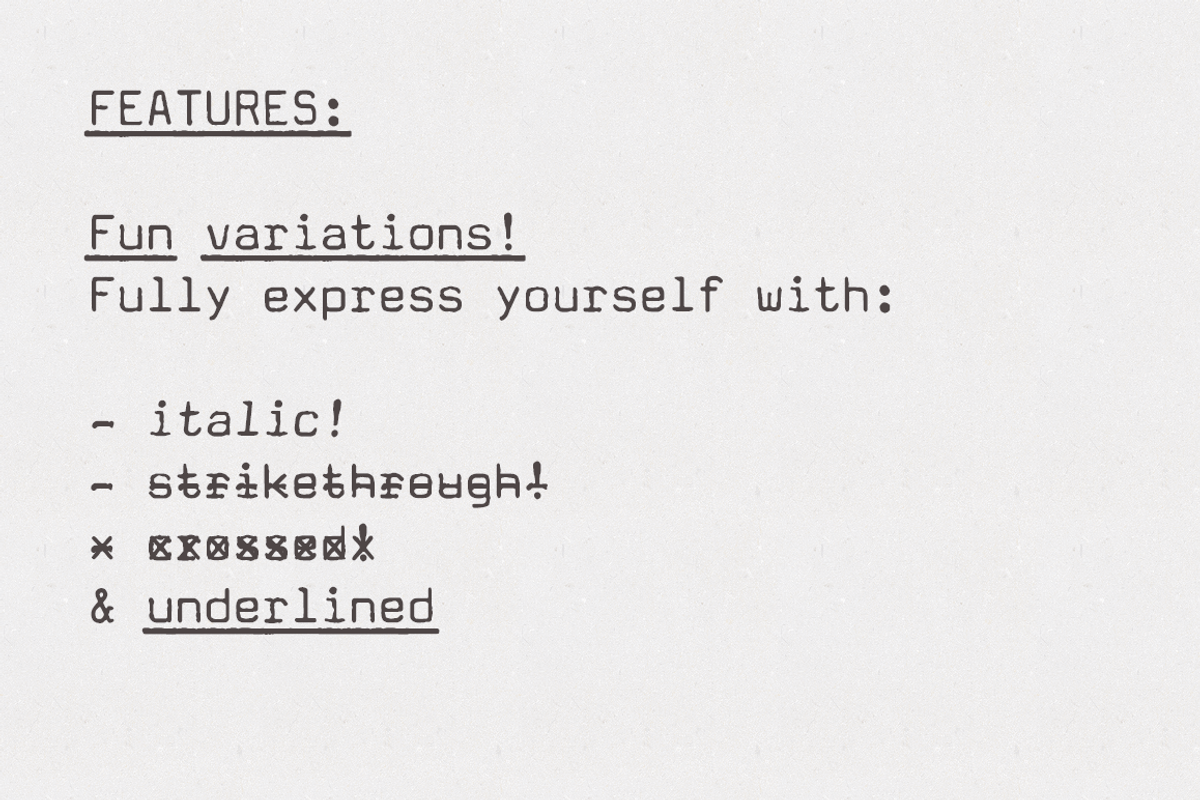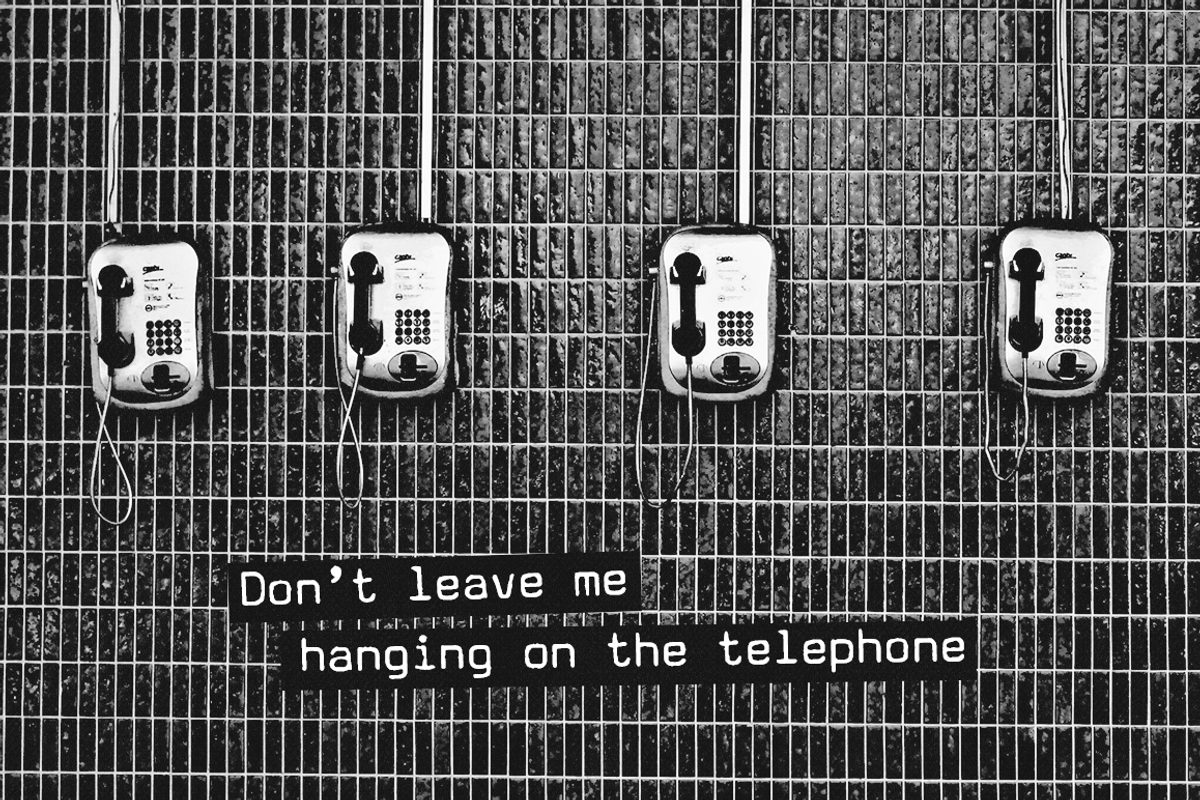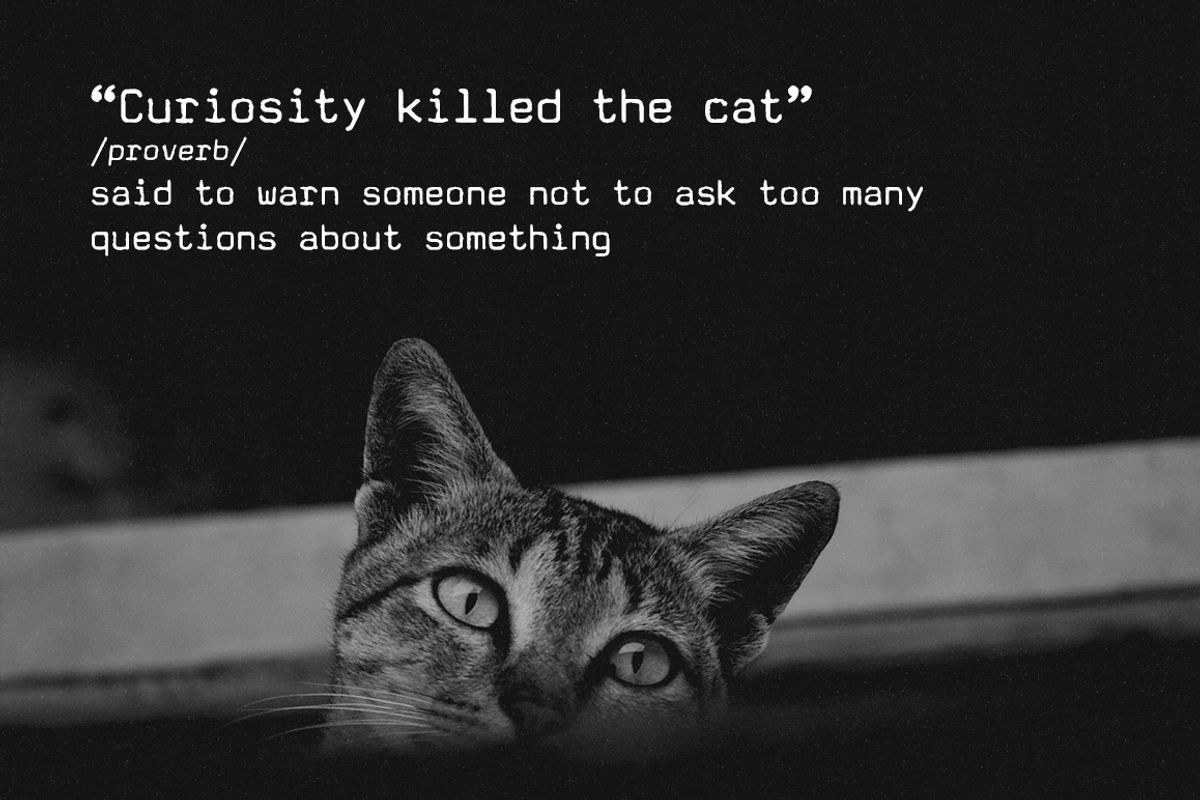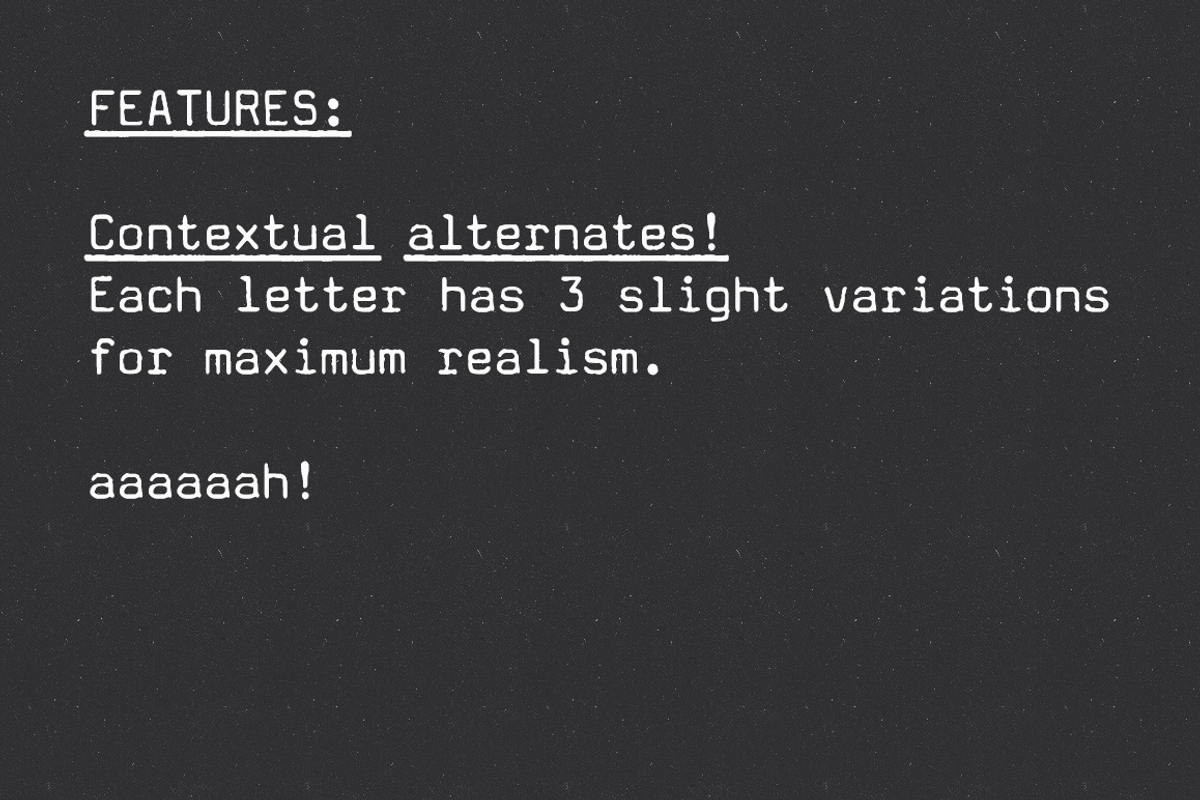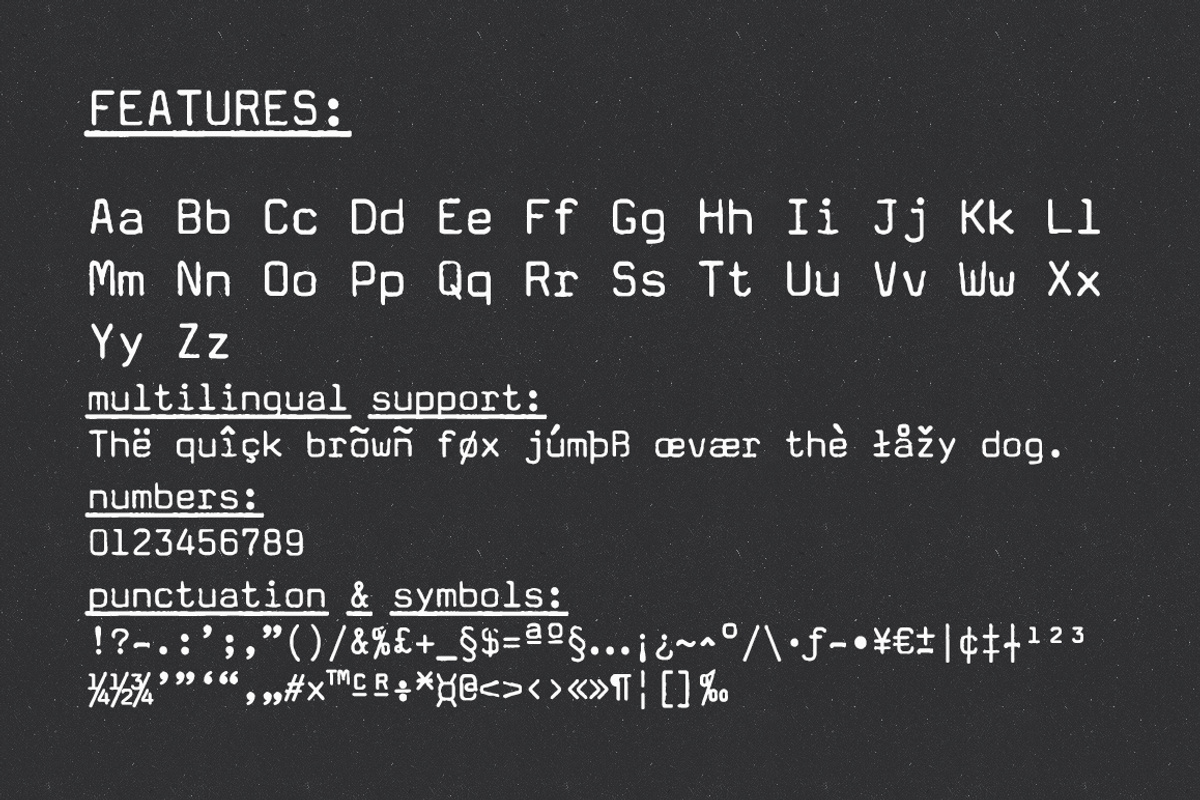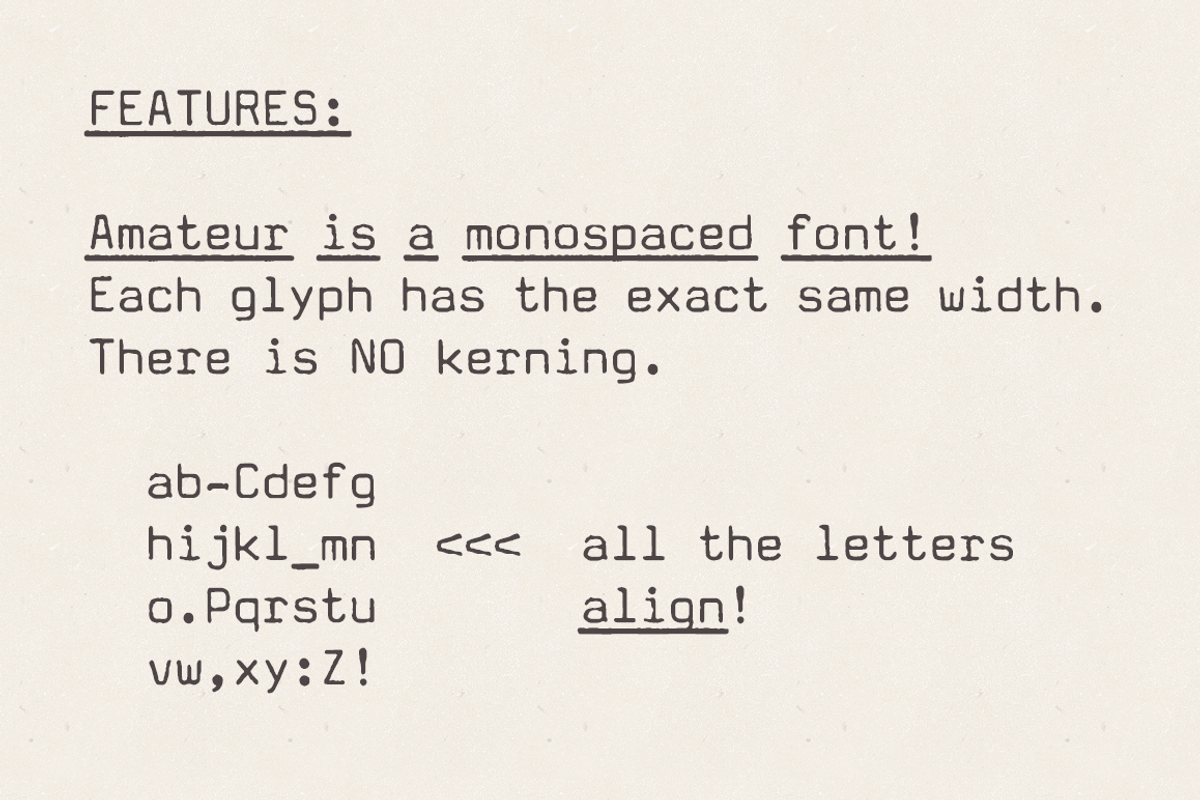
Amateur Typewriter monospaced font
Amateur Typewriter is a monospaced typewriter font, sampled from a real vintage typewriter, that is so much fun to use.
Each letter and number includes 3 versions that are slightly different from each other and appear "randomly" through the contextual aternates OT feature. This gives this typewriter font an extra dose of realism. The alternative versions of the font (strikethrough, crossed and underlined variations) make it perfect for any design that needs a quirky but very legible typewritten feel, in both titles and longer texts.
Use Amateur Typewriter in: logotype design, postcards and tags, editorial and website designs, projects that need a retro look, such as digital collages, among others.
A regular version of the Amateur Typewriter font with an Italic variation
Strikethrough, Crossed-out and Underlined versions of the font, with Italic alternatives, for a total of 8 fonts